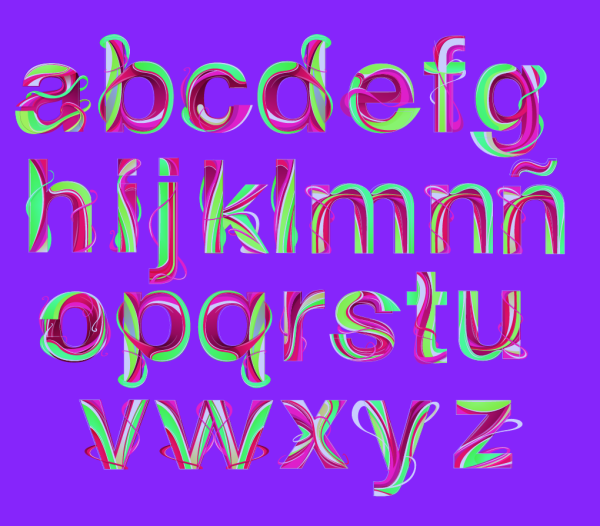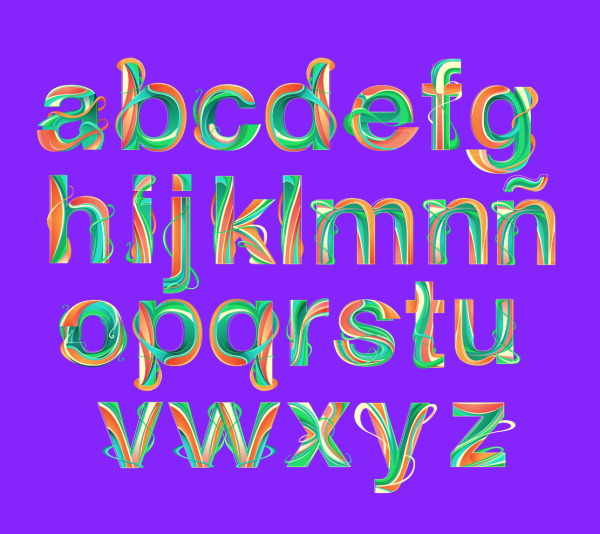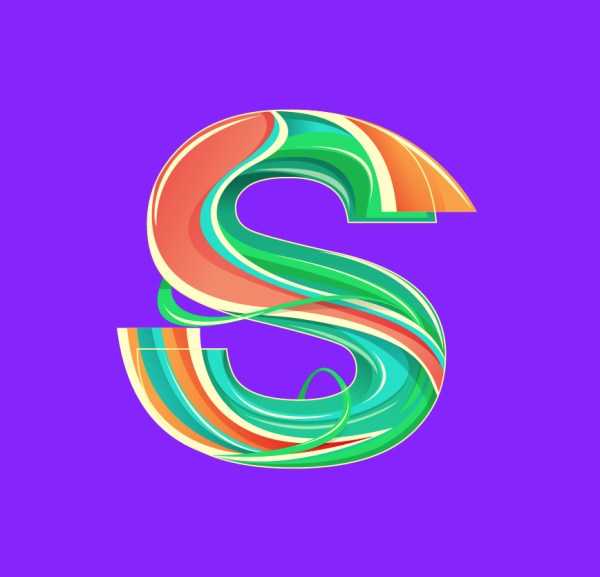
RELVETICA
This is a Swiss-based typography and interpreted redecorated my style, a way of paying tribute to this great font
Designer: Alfredo Anderson Carnero
Publisher: Alfredo Anderson Carnero